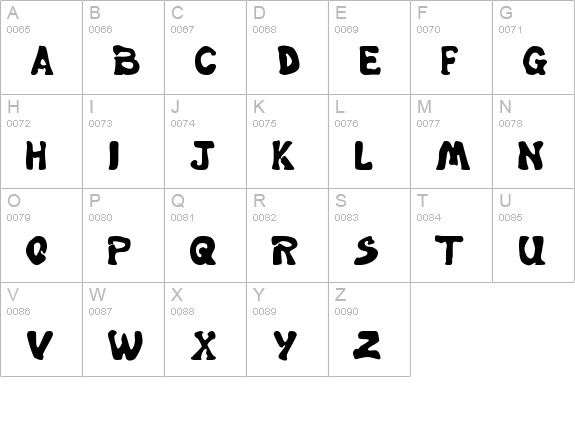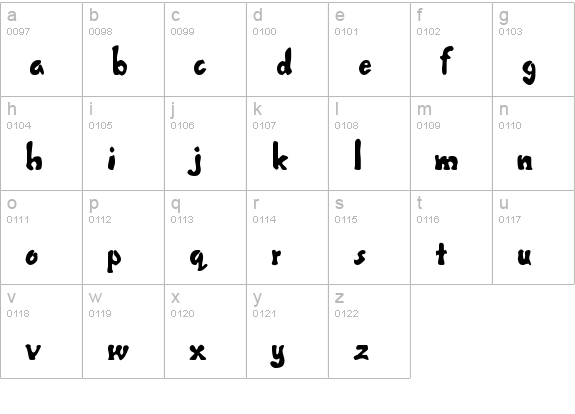
Misbehavin' - DGL Font Details
Misbehavin' - DGL font is a playful and quirky typeface that adds a touch of fun and personality to any design project. With its irregular shapes and unique letterforms, this font exudes a sense of mischief and creativity. Perfect for adding a whimsical touch to posters, invitations, or social media graphics, Misbehavin' - DGL font is sure to catch the eye and make a statement. The best part? This font is available for free download at FontsMarket.com, making it easy for anyone to add a touch of playfulness to their designs without breaking the bank. Don't miss out on the opportunity to bring a little bit of mischievous charm to your next project with Misbehavin' - DGL font.